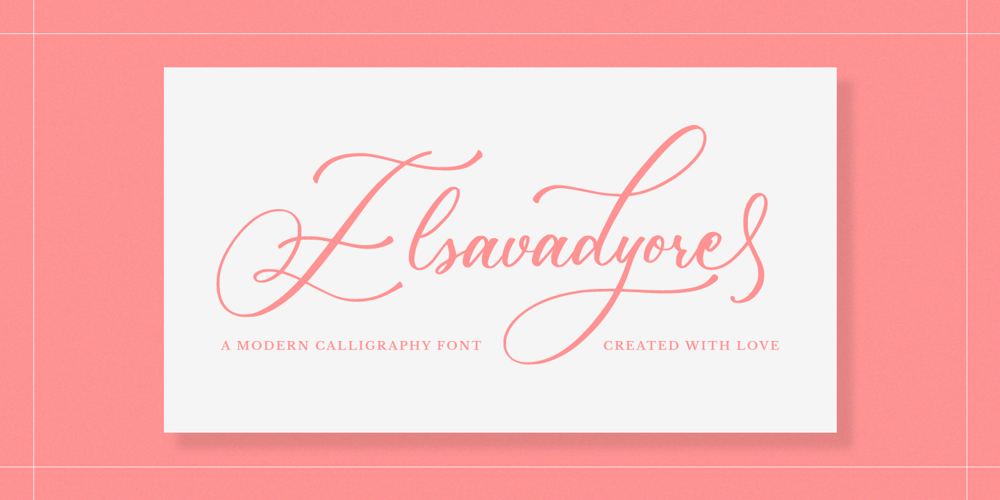
Elsavadyore
Elsavadyore font
Elsavadyore Font Family was designed by Novia Himatunnisa and published by Nissa Nana. Elsavadyore contains 1 styles and family package options. Elsavadyore is a lovely and delicate script font that exudes elegance and class. It is perfect for those who need a beautiful and refreshing look to their designs.